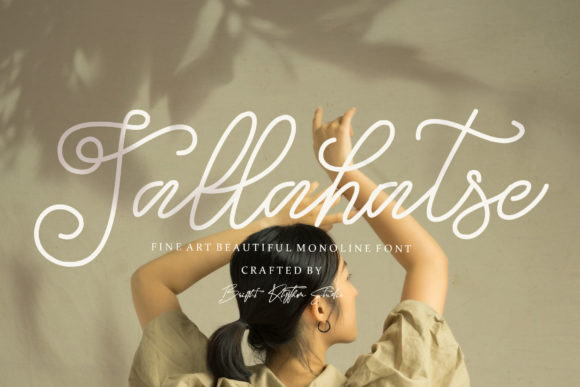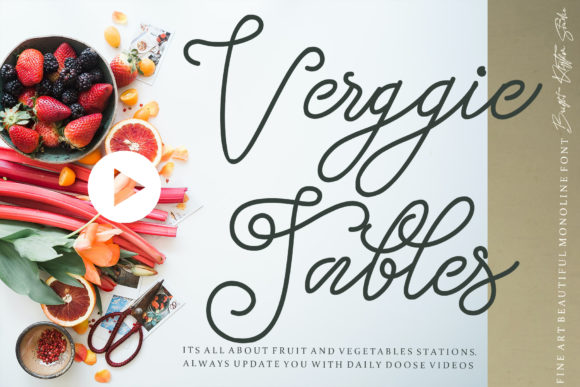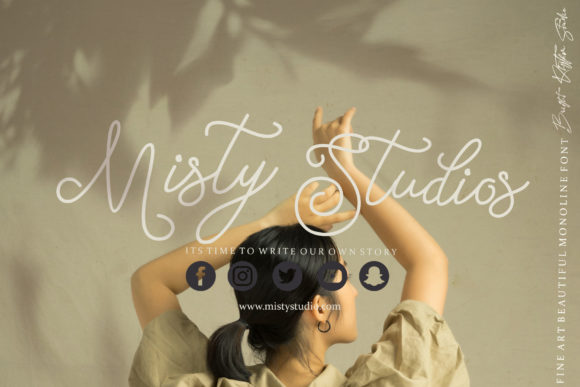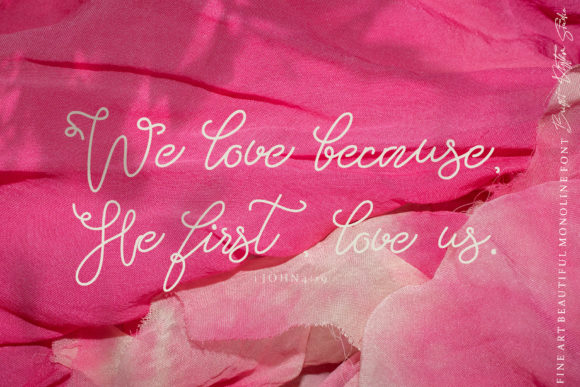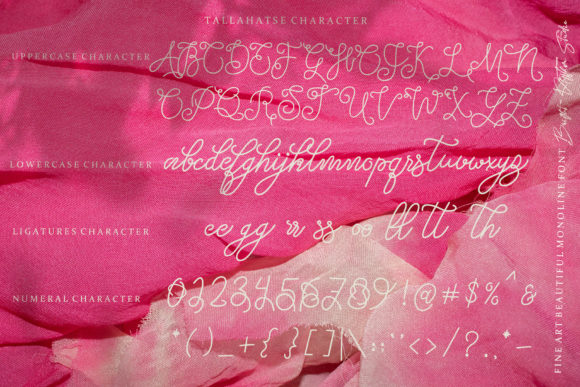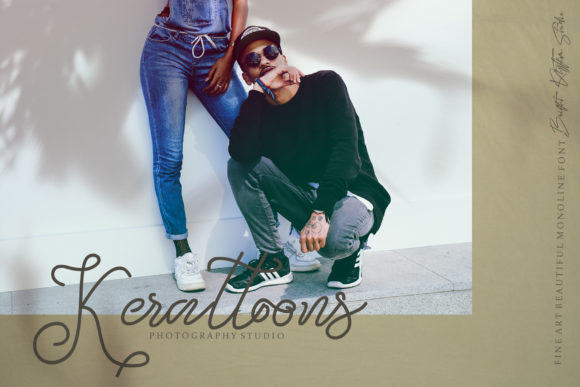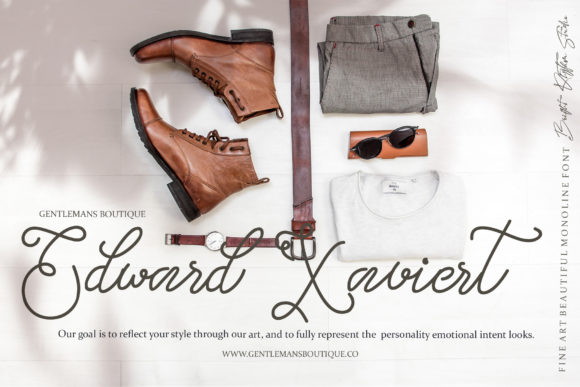
Tallahatse Font
Tallahatse is a sweet and delicate handwritten font. Dainty and joyful, this font will be ideal for writing wedding invitations, cards or any other design that may need a romantic, personalized touch!